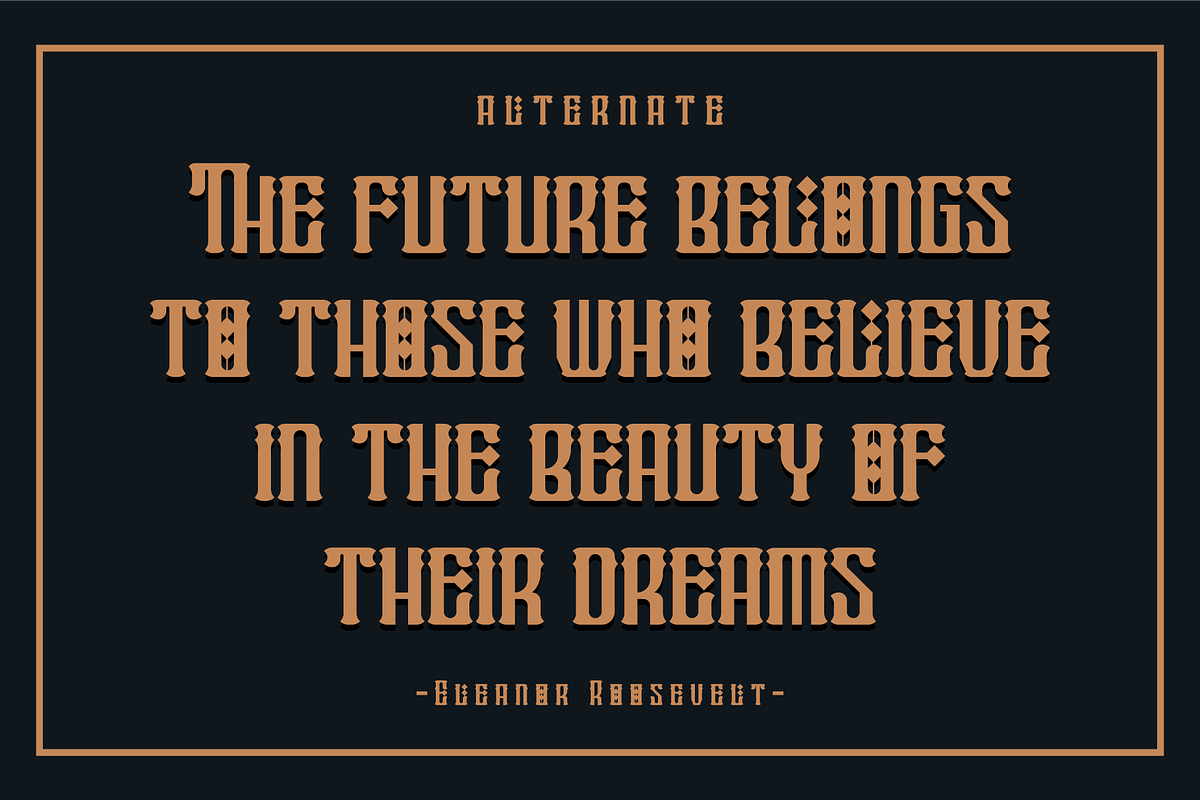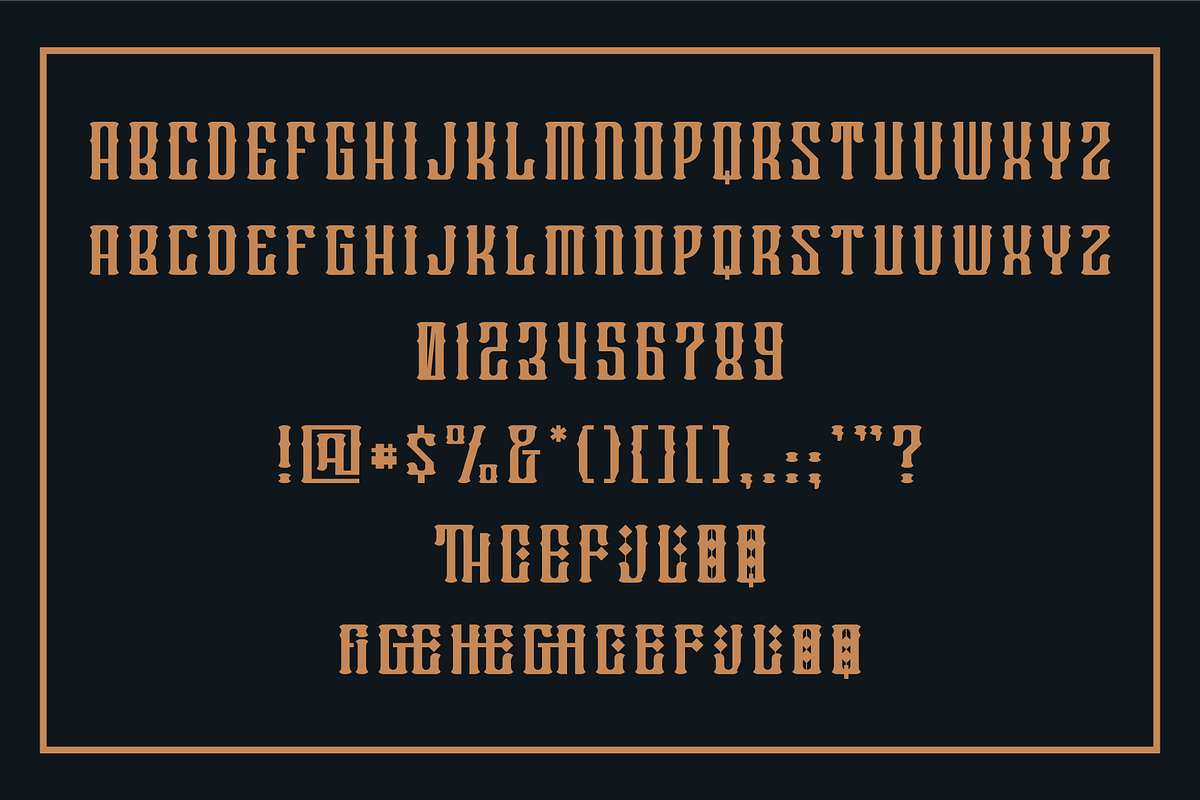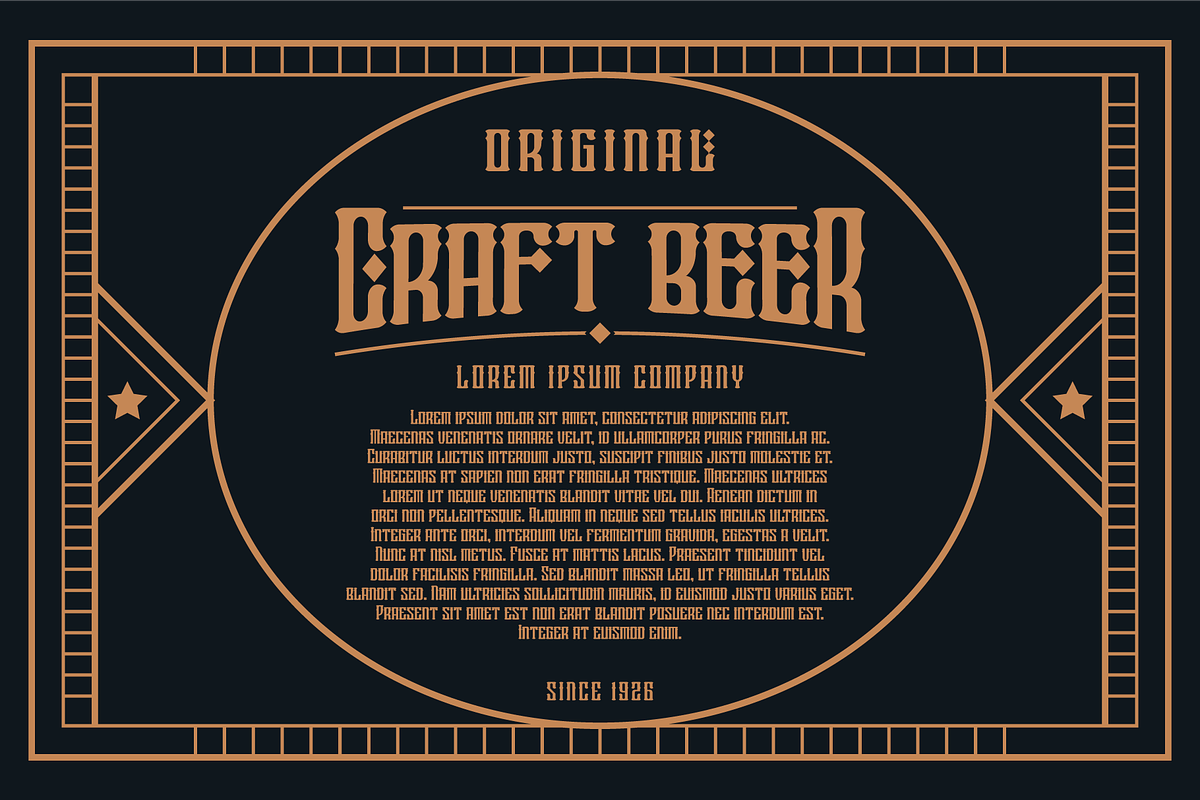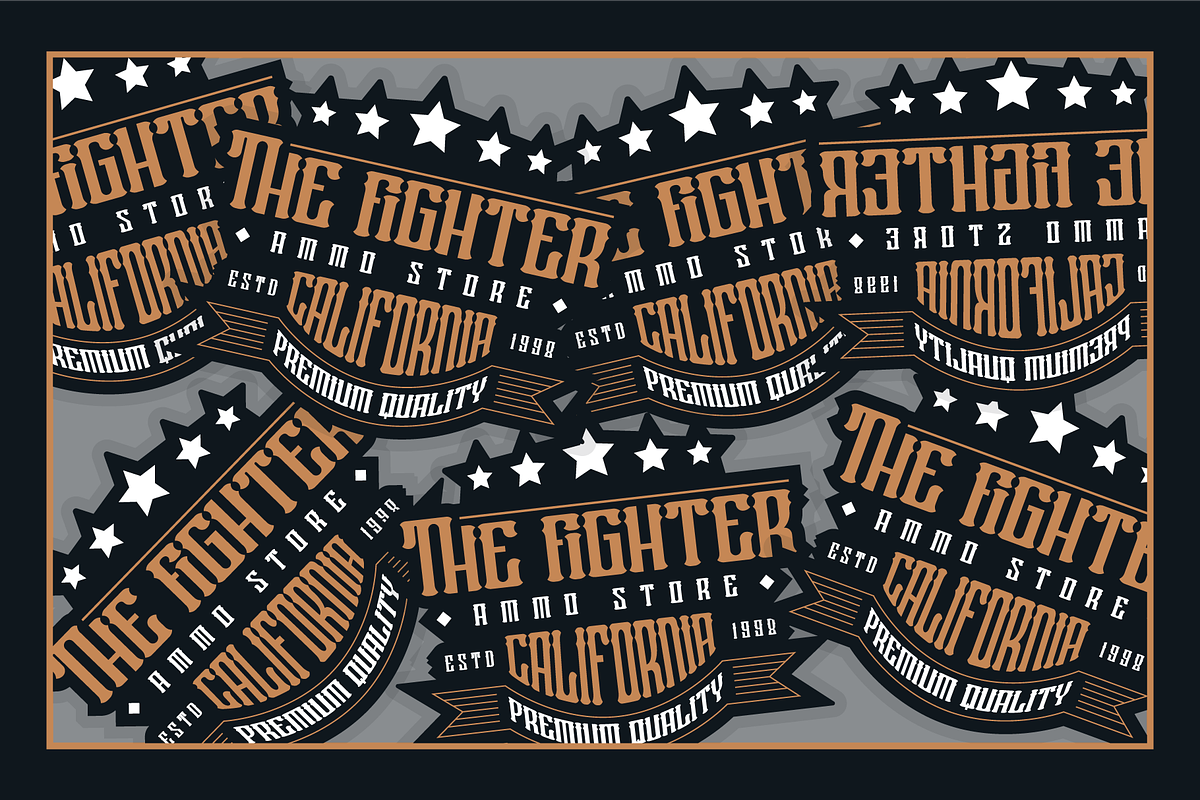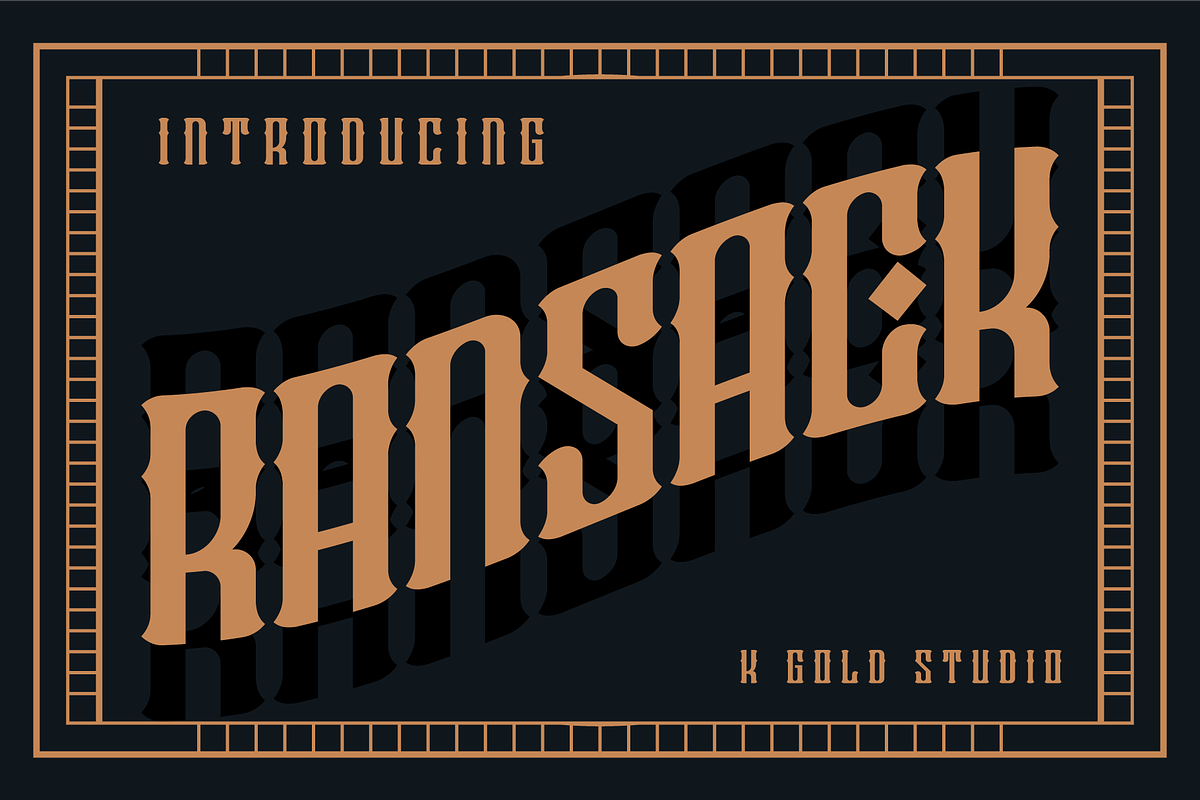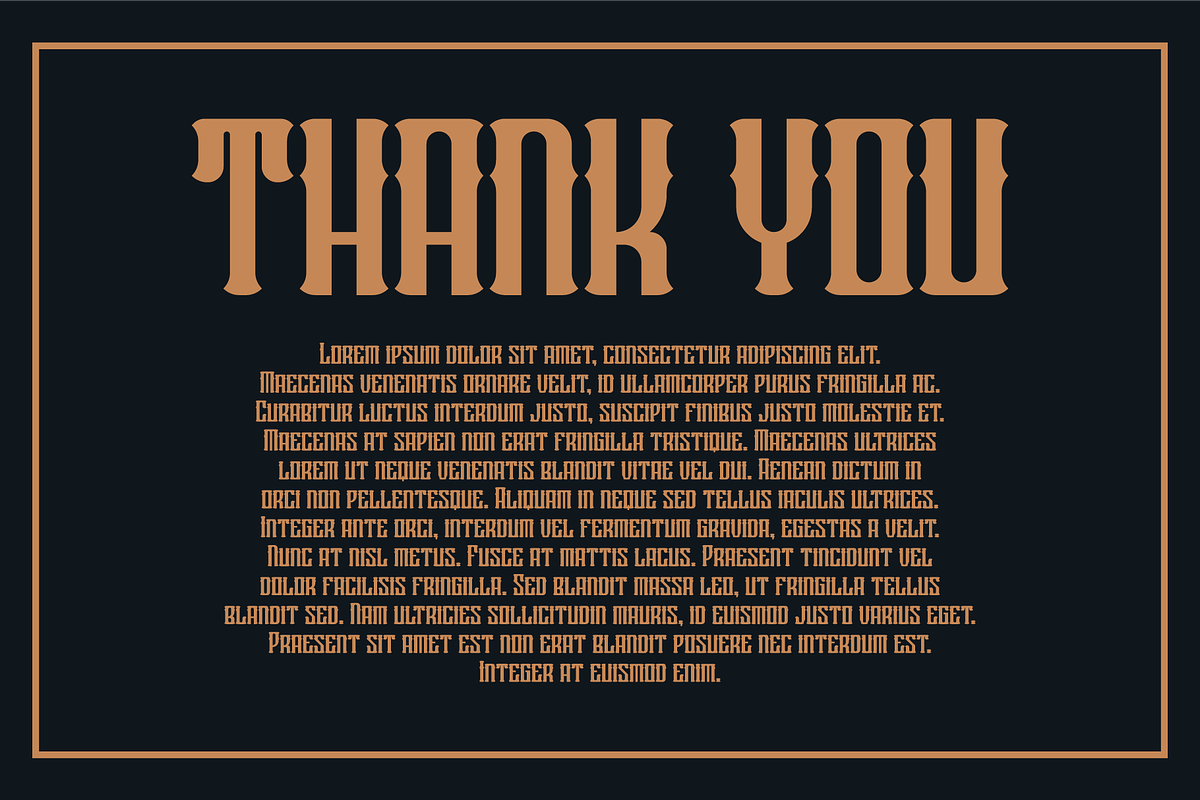
Ransack
Ransack is a distinct and intricate blackletter font. This font is neatly crafted and highly detailed. Whatever the topic, it will be a wonderful asset to your font library, as it has the potential to enhance any creation.